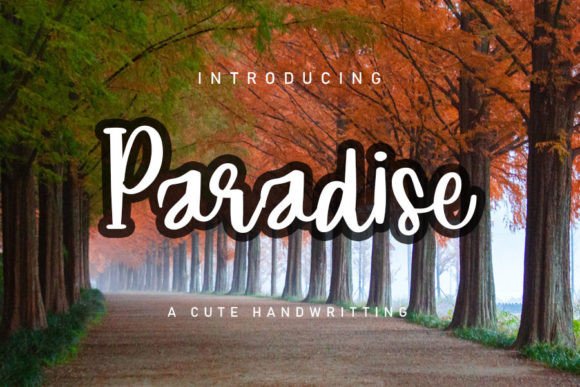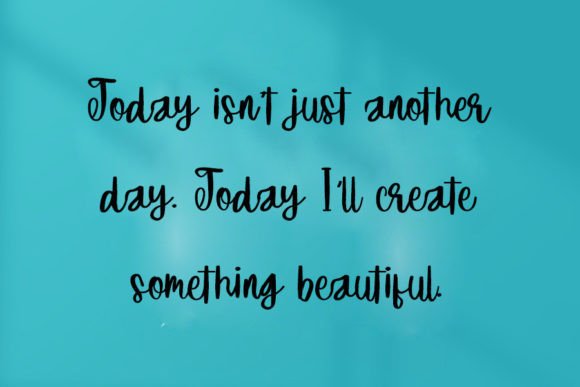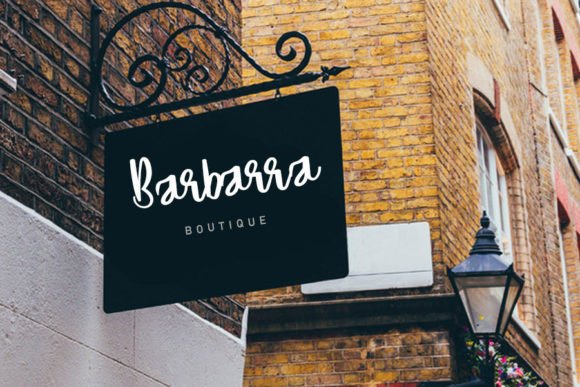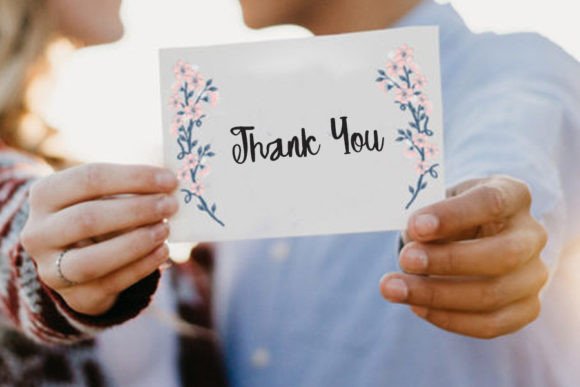
Paradise Font
Paradise Handwritten Font – Fun and Friendly Typeface
The Paradise Handwritten Font is a joyful and friendly script typeface designed to bring warmth and character to your creative projects. With its playful handwritten strokes and smooth flow, it provides a natural and approachable look. Whether you are designing greeting cards, crafts, or digital artwork, this font ensures your designs capture attention with charm.
A Handwritten Script with Natural Flow
The Paradise Handwritten Font combines soft handwritten lines with balanced proportions. Its relaxed curves give a friendly and approachable feel, while its clarity ensures that your text is always easy to read. Because of this, it adapts beautifully to both digital and print projects.
Perfect for Greeting Cards and Crafts
One of the best uses of the Paradise HandwrittenFont is in greeting cards, posters, and craft projects. Its playful handwritten charm makes personal creations more engaging. At the same time, it works well for invitations, product packaging, and branding, adding a professional yet fun handwritten style.
The Paradise Handwritten Font is highly versatile. From social media posts and logos to book covers and event materials, it adapts to many different contexts. As a result, it remains a reliable choice for both professional designers and hobbyists who want a fun, handwritten style.
Why Designers Love Paradise Font
Designers love the Paradise Handwritten Font because it blends playfulness with usability. Its joyful handwritten strokes make projects more appealing, while its readability ensures polished results. This balance makes it an excellent choice for creative professionals.
In summary, the Paradise HandwrittenFont is a fun, friendly, and versatile script typeface. With its smooth handwritten lines, quick installation, and wide usability, it is perfect for greeting cards, crafts, posters, and branding projects. Don’t miss the chance to download Paradise HandwrittenFont and add cheerful charm to your designs.